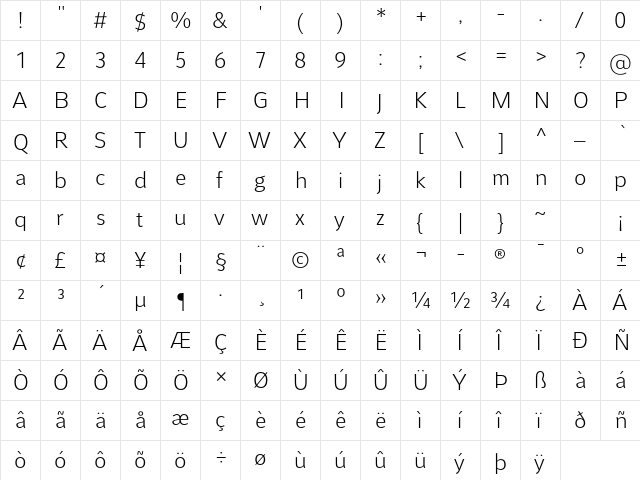
Aretha Light
| Foundry | Anugrah Pasau |
| Designer | Anugrah Pasau |
Design Context for Aretha Typeface
Aretha is a composed and adaptable typeface that performs quietly and consistently across a wide range of design contexts. The delicate stroke weight brings airiness and refinement to layouts.